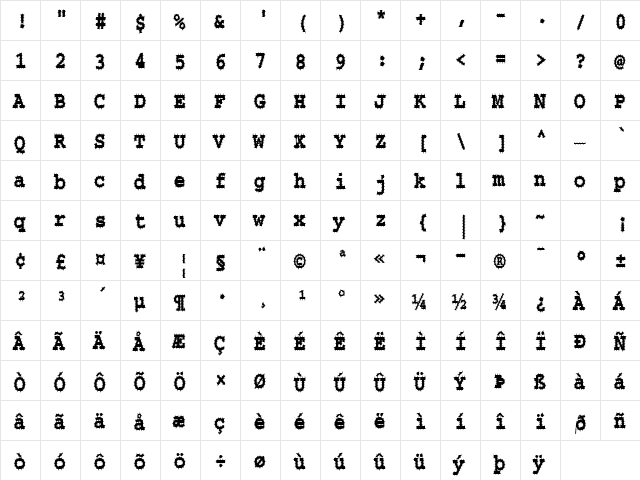
Chisel-Spiked-Condensed Normal
Design Context for Chisel-Spiked-Condensed Typeface
Chisel-Spiked-Condensed takes a measured approach to typography — its balanced proportions and neutral character make it a reliable workhorse for both digital and print work. The condensed width makes it efficient for tight spaces without sacrificing legibility.